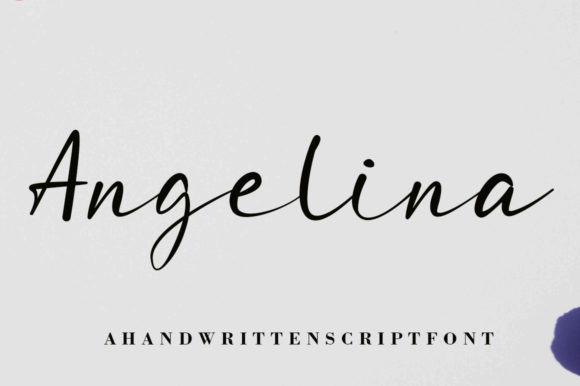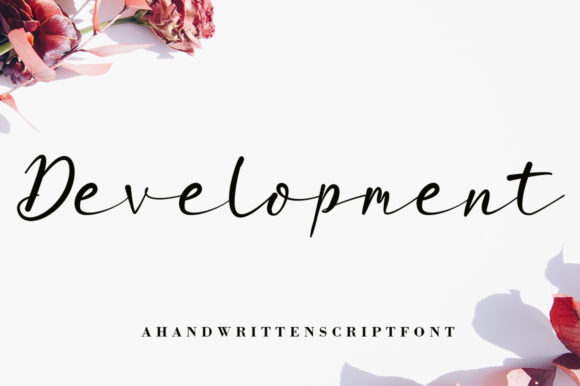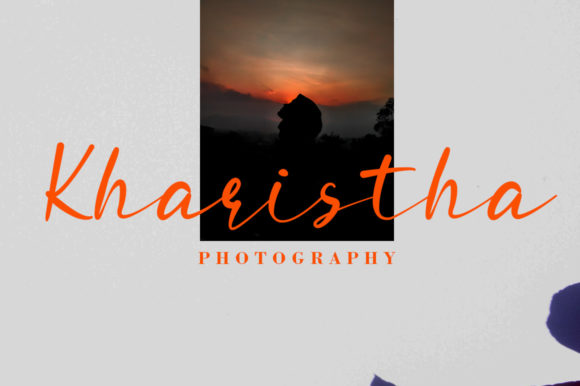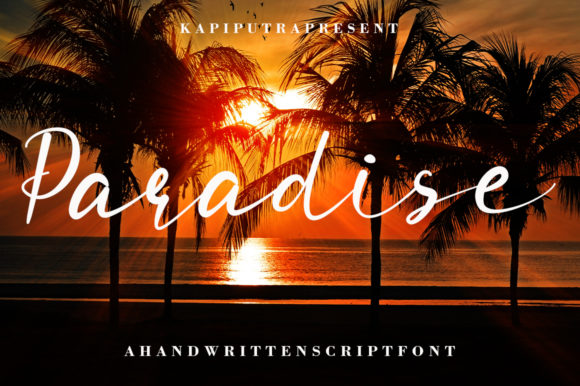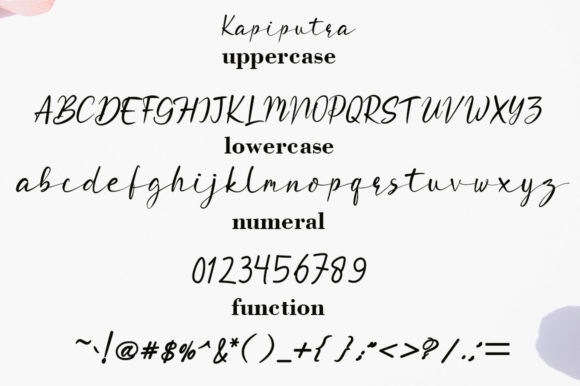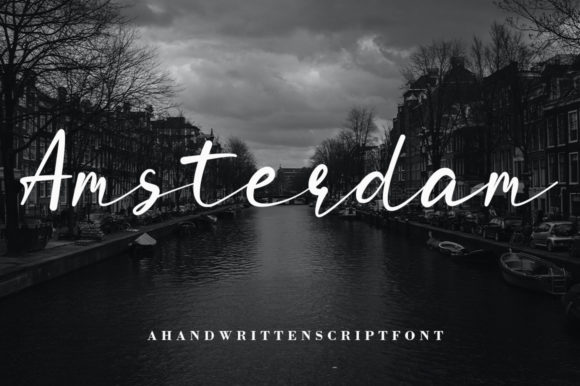
Introduction to Kapiputra Font
Kapiputra is a free-flowing script font created for packaging products, invitation cards, flyers, mockups, event posters, and anything else that requires high-quality vibes.
It has a beautiful and balanced character, that fits well with the large design pool .
Key Features of Kapiputra Font